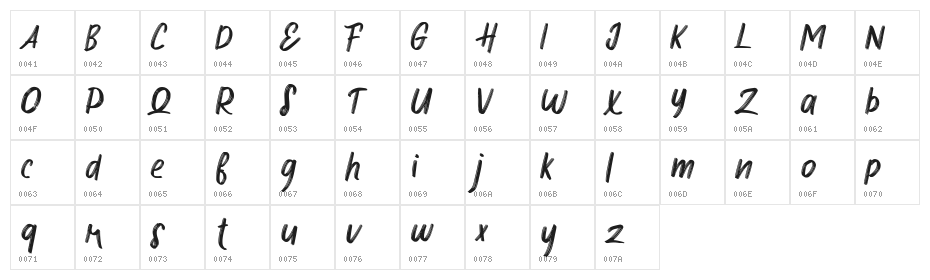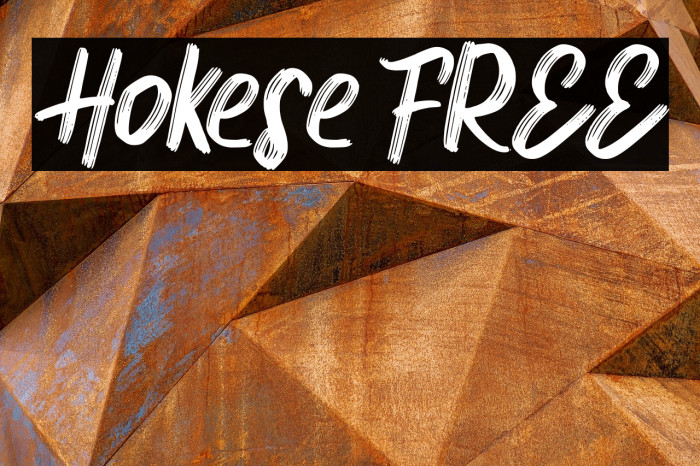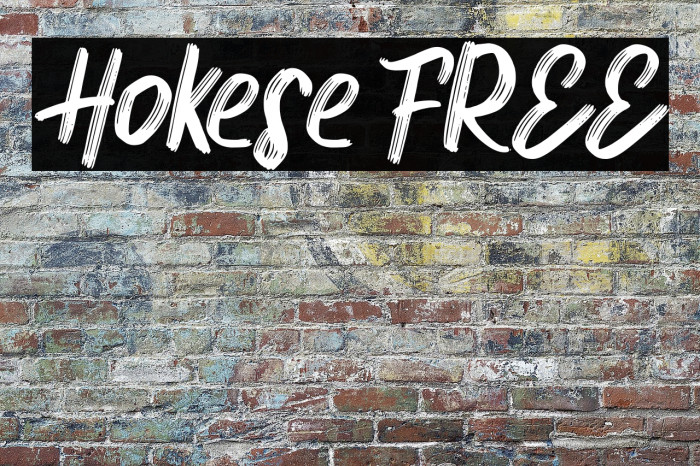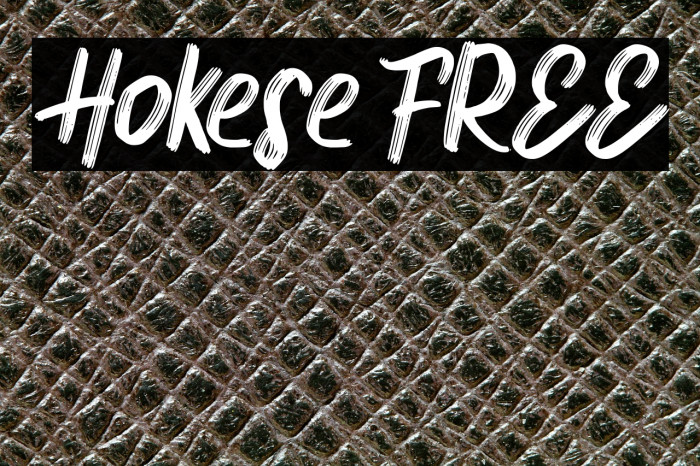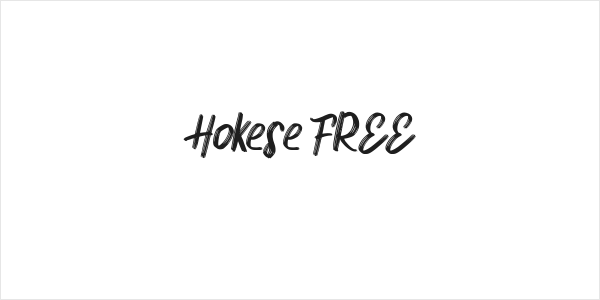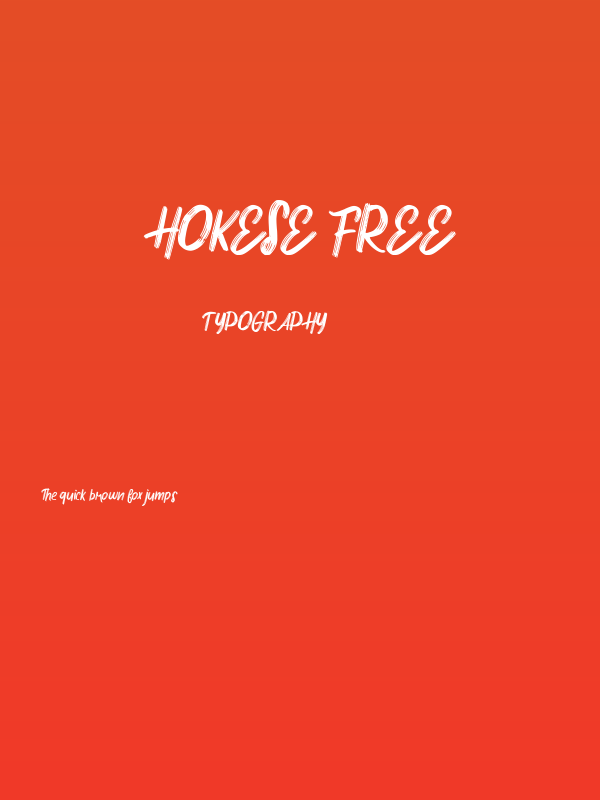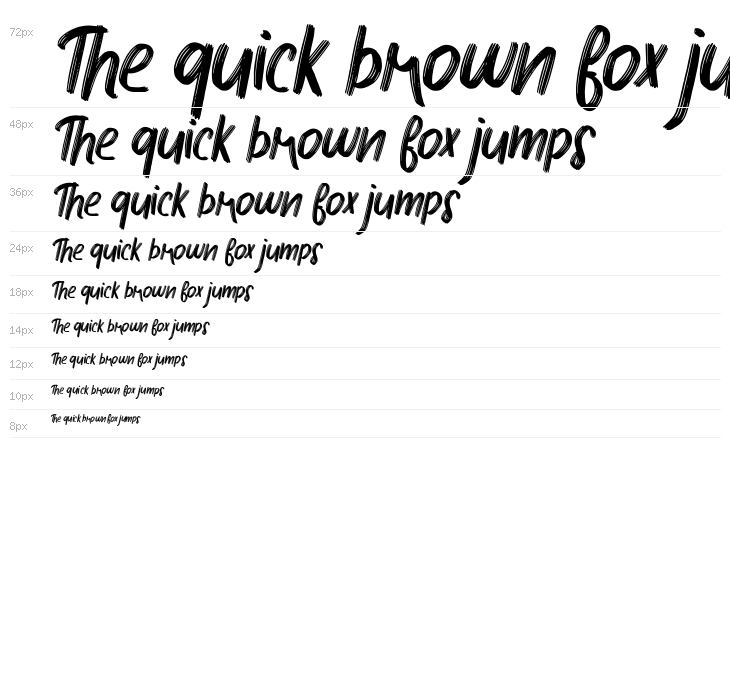
Hokese FREE Font
Hokese FREE Description
This font features a bold, energetic brush style that exudes a sense of movement and dynamism. The strokes are thick and expressive, with a hand-drawn appearance that adds a personal touch to any design. The uppercase and lowercase letters are consistent in style, maintaining a cohesive look throughout. The characters are slightly slanted, enhancing the fluidity and casual feel of the font. The spacing between characters is relatively tight, which helps maintain the compact and impactful nature of the text. This font is ideal for projects that require a lively and modern aesthetic, such as branding, posters, or social media graphics.
| Proposed Projects | Branding, posters, social media graphics, event invitations, and merchandise designs. |